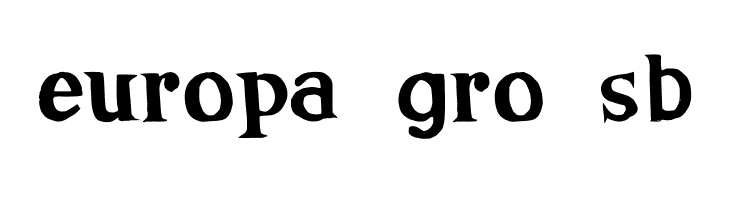
A lively, playful font with rounded, hand-drawn strokes.
, with Reserved Font Name: "Knewave". ) A bold, handwritten-style font with a playful and dynamic appearance.
A dynamic and fluid script font with smooth, flowing lines and a lively appearance.
A vintage serif font with a textured, handcrafted appearance.
A lively and dynamic cursive script font with a handwritten appearance.
A playful, outlined font with rounded, slanted characters for a lively look.
A lively, handwritten script font with fluid curves and dynamic strokes.
A bold, playful handwritten font with rounded strokes and a lively, informal style.
A lively, handwritten font with fluid and dynamic strokes.
A playful, casual handwritten font with irregular strokes and a lively feel.
An elegant serif italic font with smooth lines and moderate contrast.
A modern serif font with elegant lines and versatile applications.
A bold, classic serif font with strong strokes and pronounced serifs.
A bold, italic serif font with a classic yet modern style.
An elegant italic font with smooth curves and moderate stroke contrast.
A bold, classic serif font with strong strokes and elegant serifs.
A bold, italic serif font with a classic and elegant style.
A classic serif font with a modern touch, offering elegance and readability.
A bold and italic serif font with strong, dynamic strokes and pronounced serifs.
A modern serif font with clean lines and elegant proportions.
A bold, classic serif font with strong strokes and elegant serifs.
An elegant serif italic font with moderate contrast and a classic style.
A playful, bold handwritten font with a lively and informal style.
A bold, handwritten-style font with a playful and energetic vibe.
A playful handwritten font with irregular strokes and a lively appearance.
A playful, handwritten font with smooth, flowing strokes and a lively appearance.
A bold, energetic script font with dynamic and flowing letterforms.